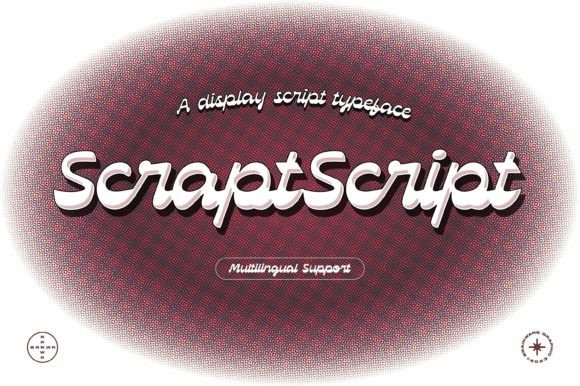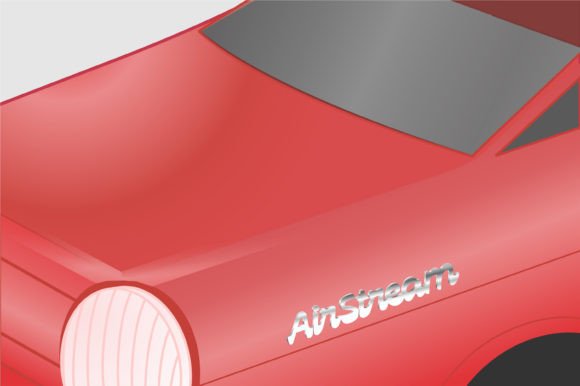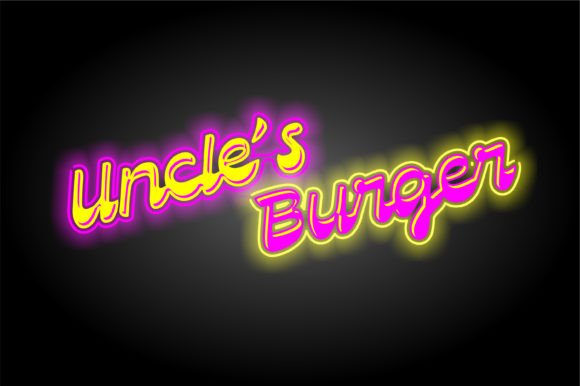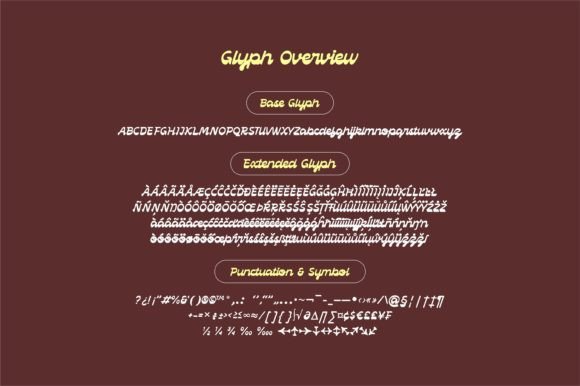
About Scraptscript
ScraptScript is a classic casual script typeface inspired by signpainter and autotechno typography, developed with a little bit bold and contrast on horizontal stroke.
Comes with a lot of opentype features, ScraptScript also supports multilingual covering Latin based language (Latin Extended-A & Latin Extended Additional), including Celtic, Sami, Maltese, Turkish, England, USA, Germany, France, Italy, Poland & etc.
ScraptScript would be nice on logo design, posters, etc. with any design characteristic.